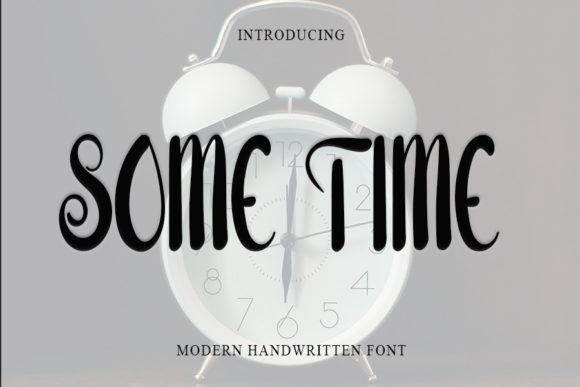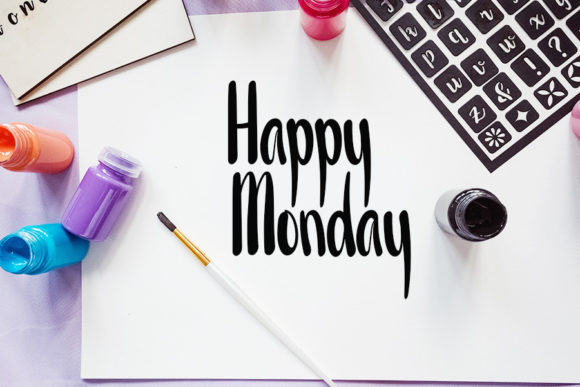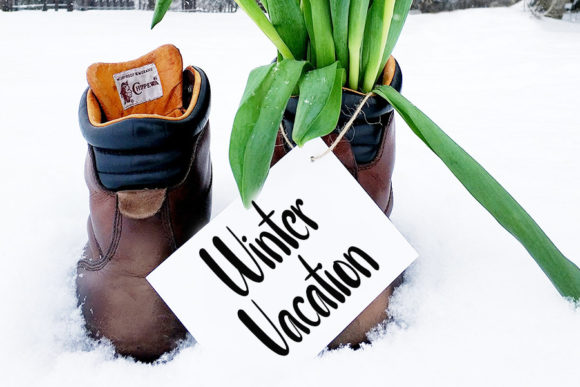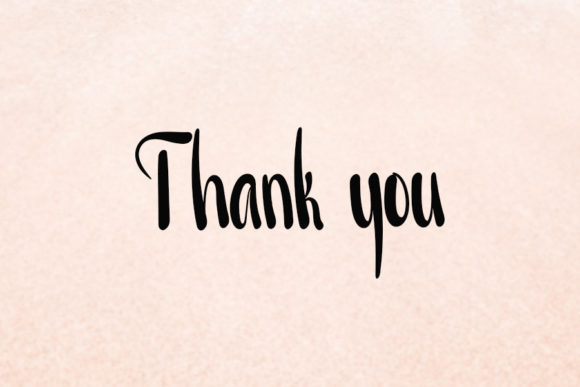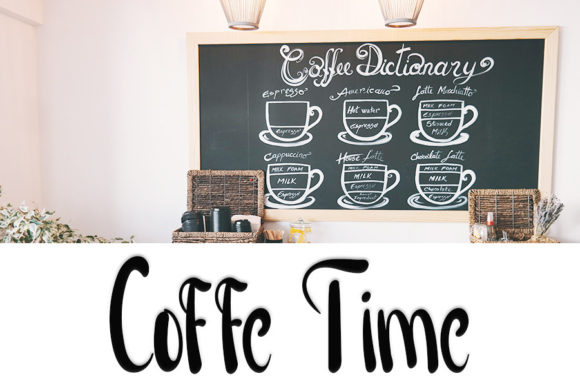
Some Time Font
About Some Time Font
Some Time is a friendly handwritten font, carefully designed to become a true favorite. It maintains its classy calligraphic influences while feeling contemporary and fresh.